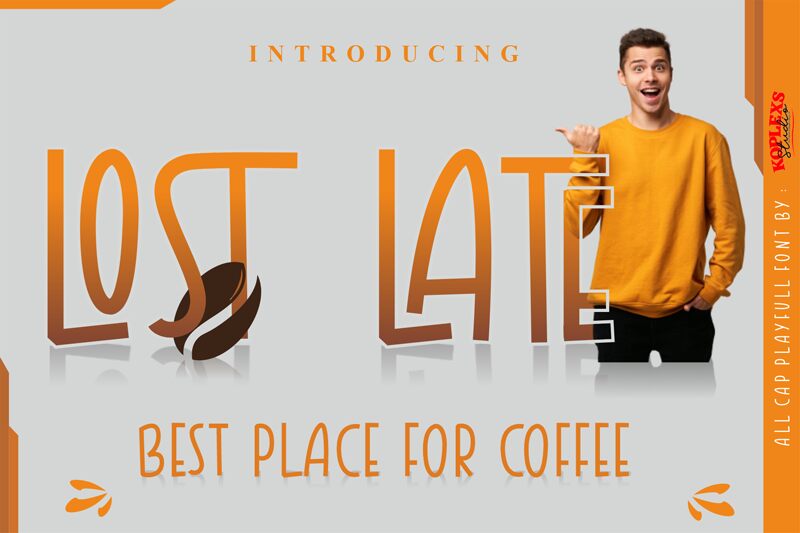
LOST LATE
Lost late font by Koplexs Studio holds a distressed design that looks grunge-inspired while maintaining a lighthearted, playful style. Shaped irregularly for an informal charm with slightly distorted alignment, this free cartoon display font instantly gives any typography an unusual, expressive appearance. Despite the distressed look, the letters are clear and readable with simplicity on the sides of distinctiveness.
This general-purpose typeface can be chosen for all book covers, websites, blog pages, greeting cards, print packaging designs (boxes or cans), logos and brand names, artistic apparel items (such as T-shirts and caps), games texts/artworks (in mobile or console games), headlines in magazines or catalogs among others.